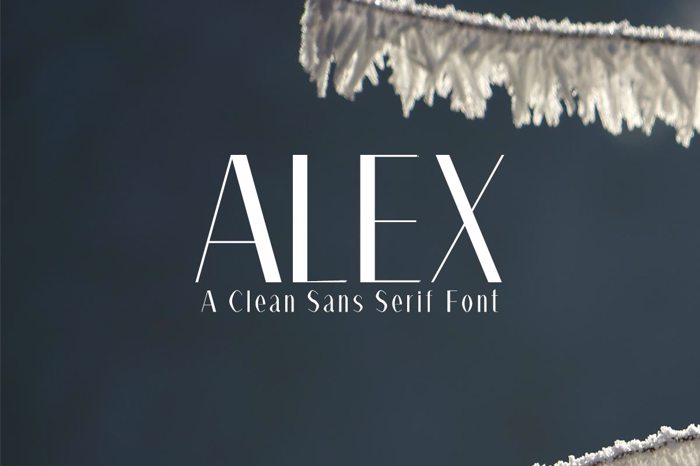
Alex Font
Alex is the unique typeface for creating elegant headlines, fashion magazine covers, book covers, templates and creative displays and logo designs.